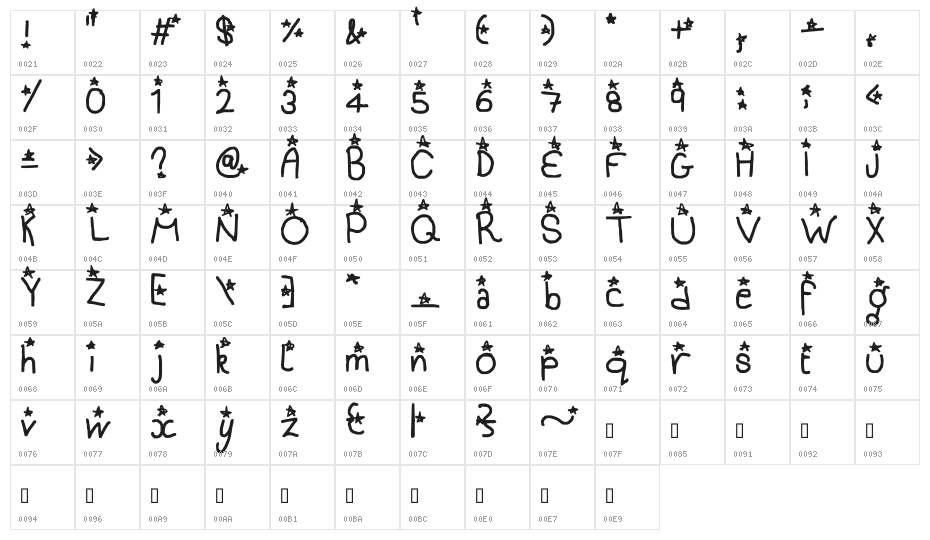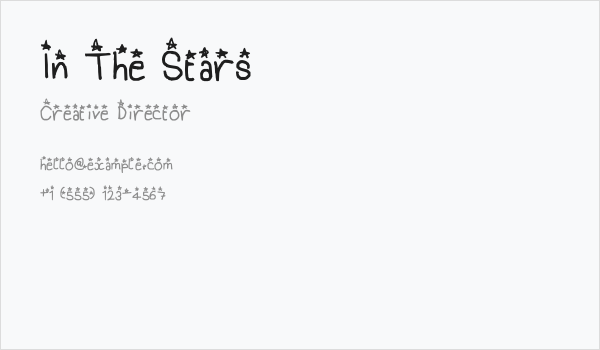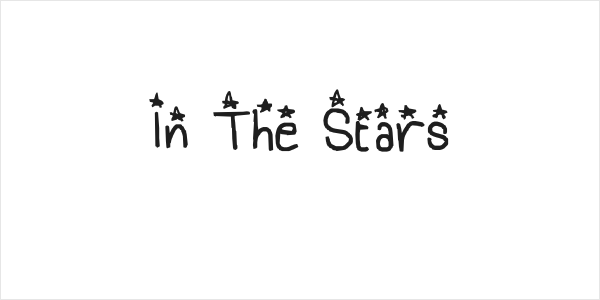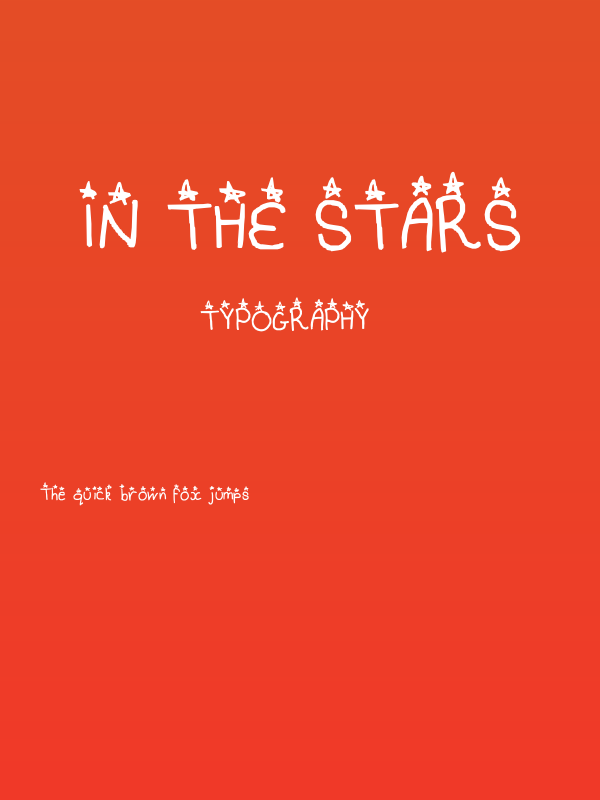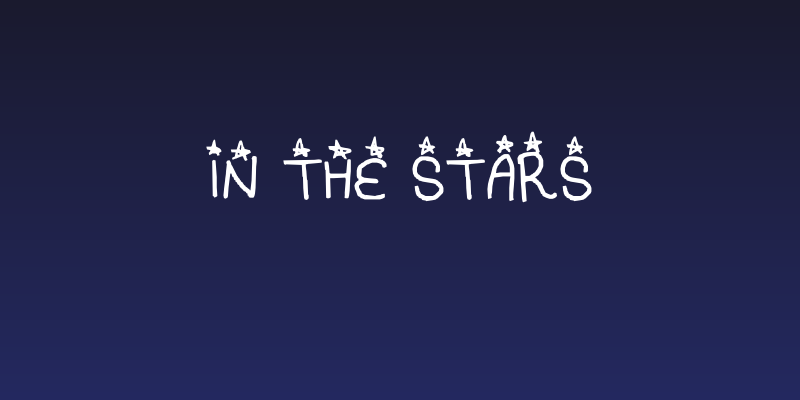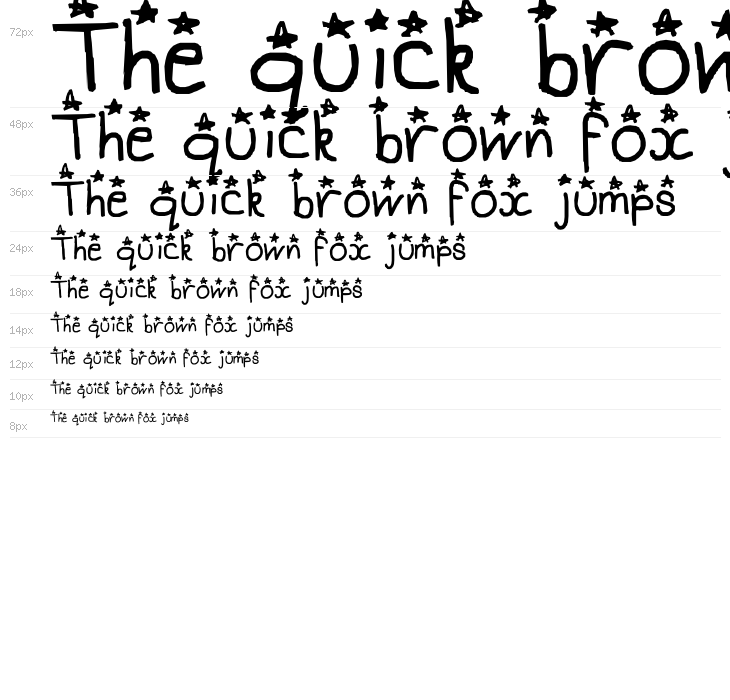
In The Stars Font
In The Stars Description
This whimsical font features playful star accents above each character, giving it a celestial and enchanting appearance. The letters are bold and rounded, with a hand-drawn feel that adds a touch of informality and charm. The uppercase and lowercase letters maintain a consistent style, with the stars adding a unique decorative element. Numbers and special characters are also adorned with stars, ensuring a cohesive look across all elements. This font is perfect for projects that require a fun and imaginative touch, such as children's books, party invitations, or any design that aims to capture a sense of wonder and creativity.
| Overall Style | Whimsical |
| Proposed Projects | Ideal for children's books, party invitations, and creative designs. |